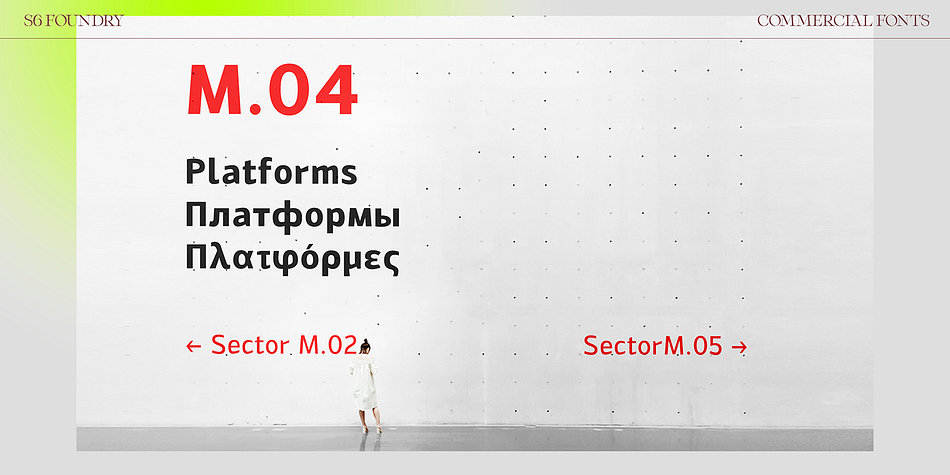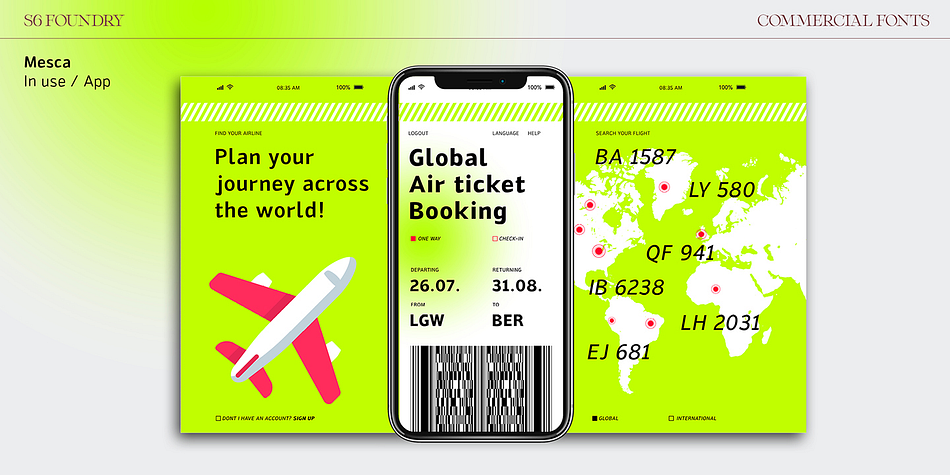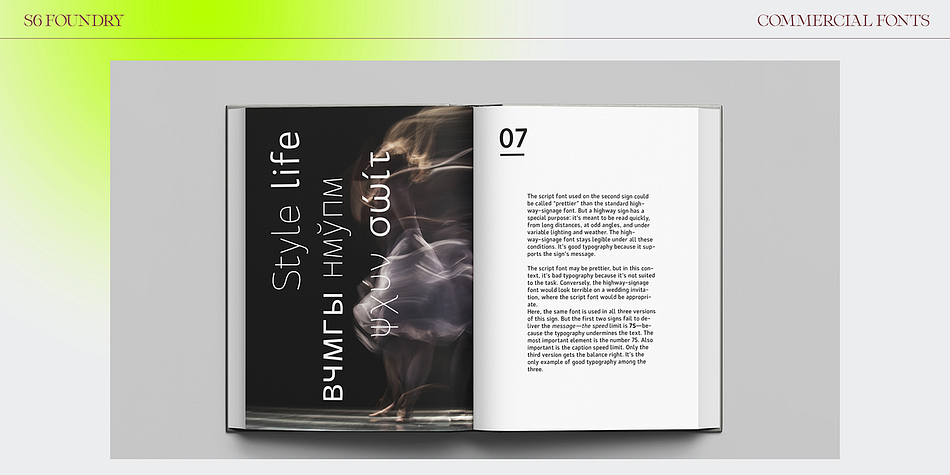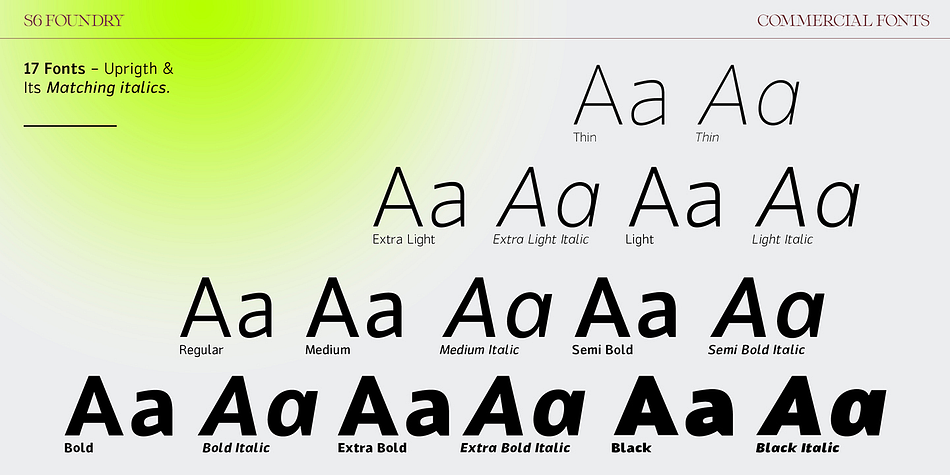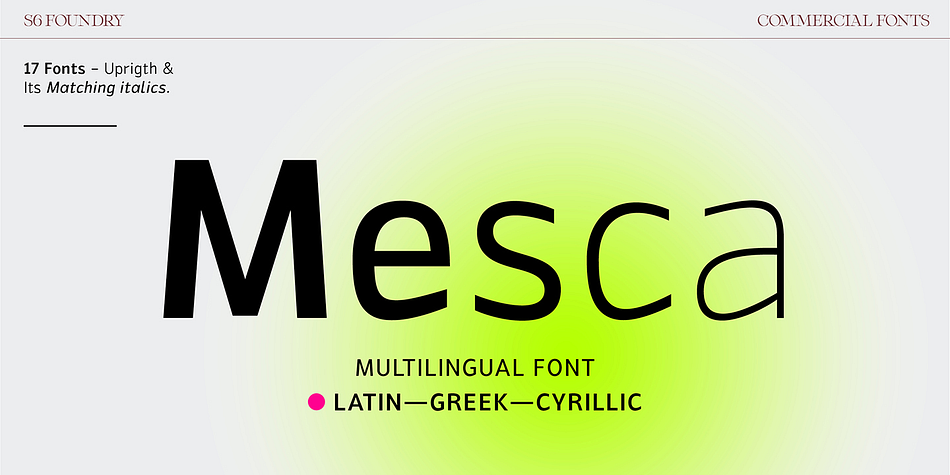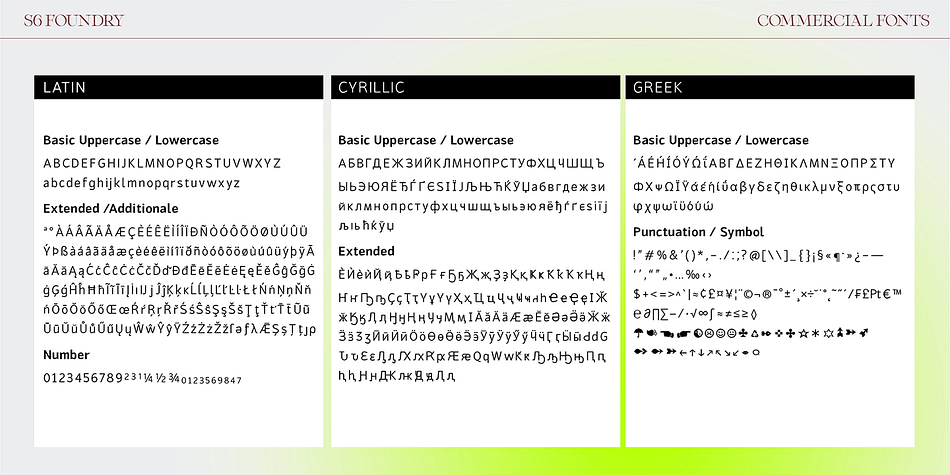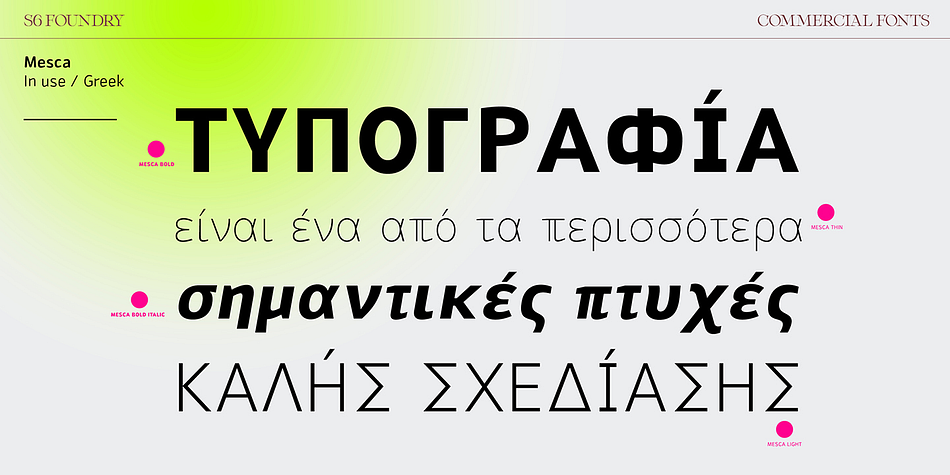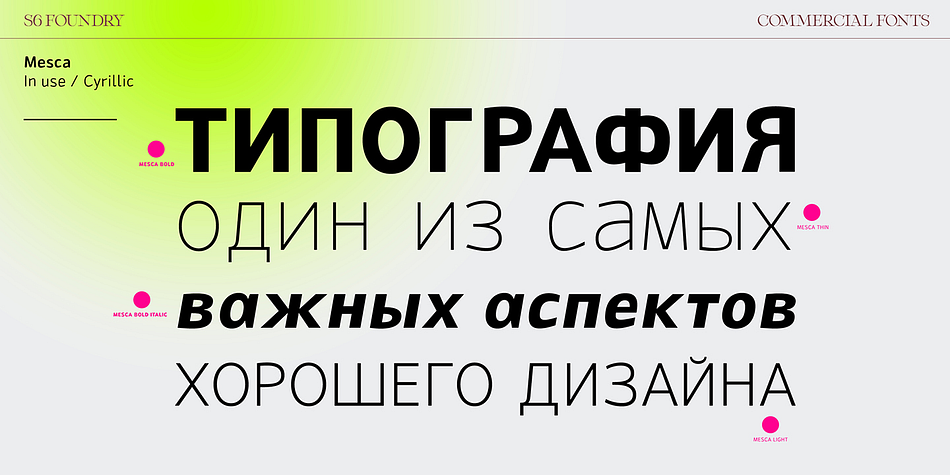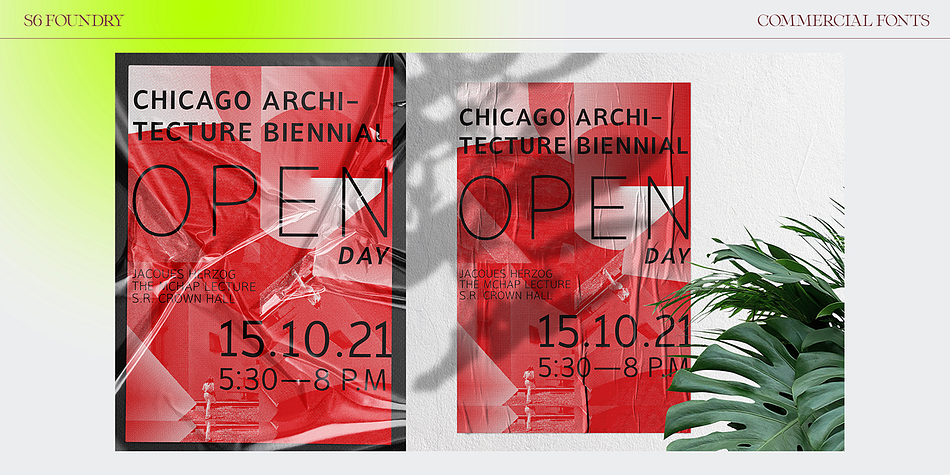
Designed by Naser Imache, Mesca is a sans serif font family. This typeface has seventeen styles and was published by S6 Foundry.
Mesca is a distinctive multi-language font with characters (Latin, Greek, Cyrillic) for industry and digital, with elegant, high-quality typographic responses to the complex technological needs for different media and digital uniforms: TV screens, computers, and mobile phones, smartwatches also editorial fields such as print or digital magazines, books. Furthermore, its multifunctional character goes far beyond editorial and digital use. It promises great performance in terms of branding, advertising, signage, mobile app, etc.
Mesca is a contemporary humanist sans-serif font with a generous x-height and slightly condensed proportions. Which offers a combination of good readability and space-saving. Built on rational lines of pure geometry, which presents a notable inclination in the terminals of the letters with external and internal acute angles that create a strong contrast.